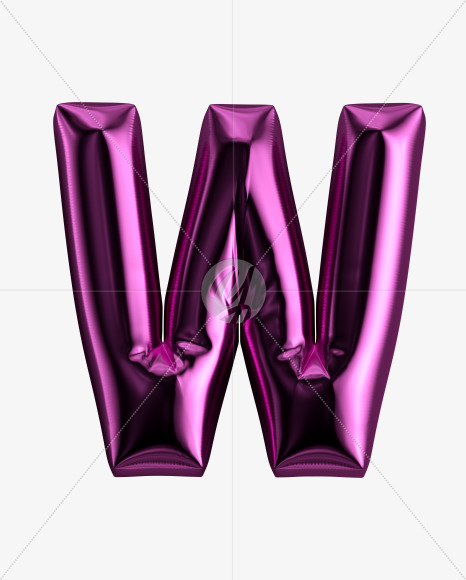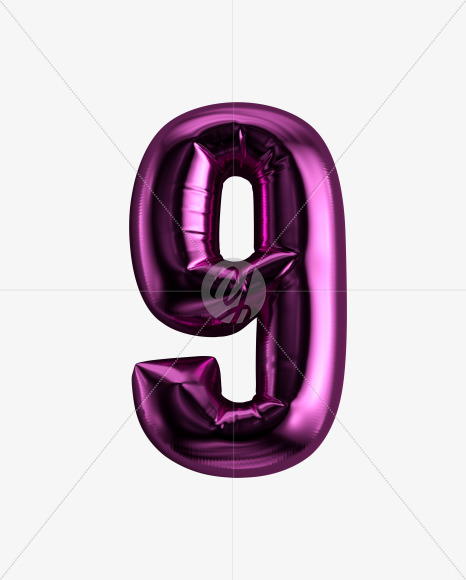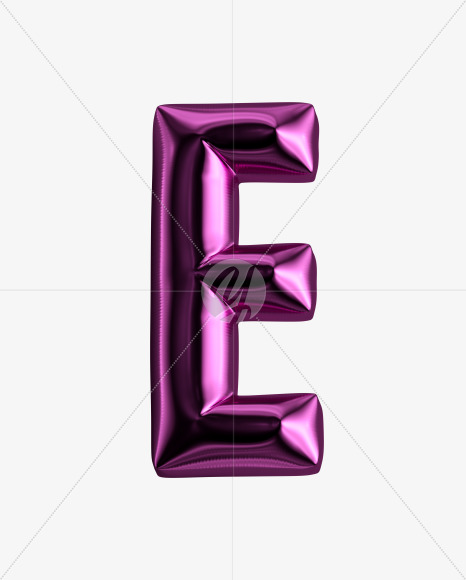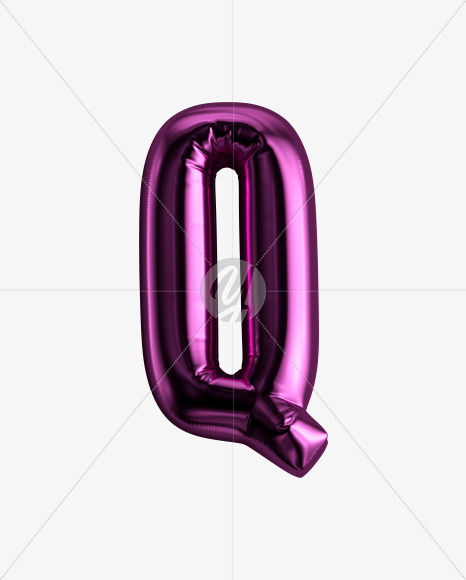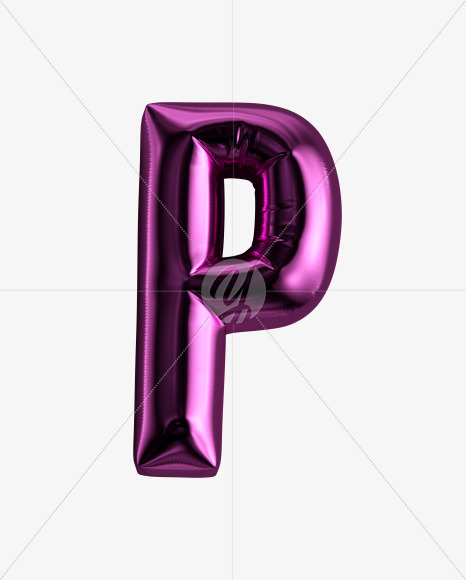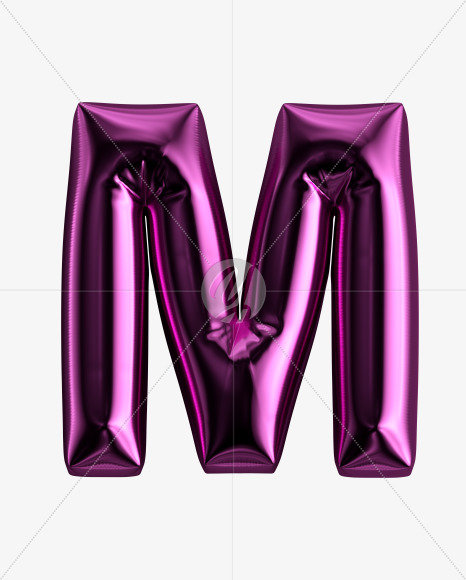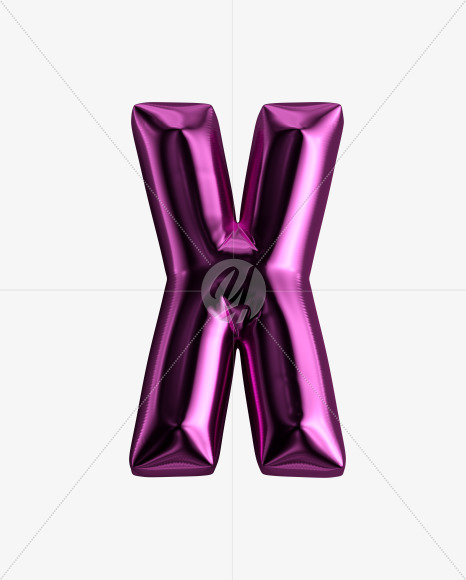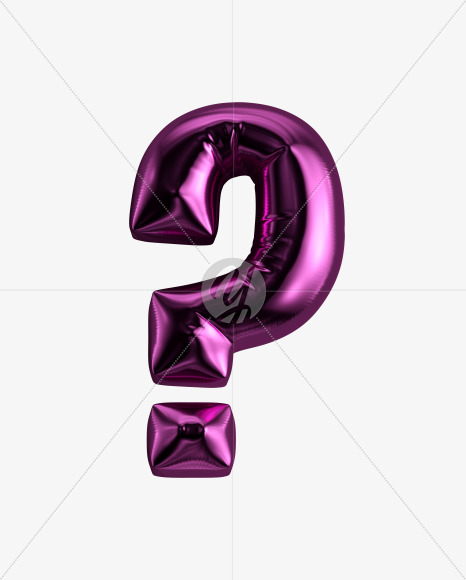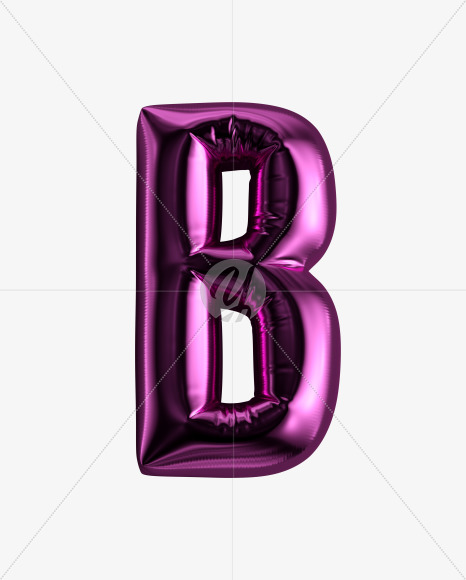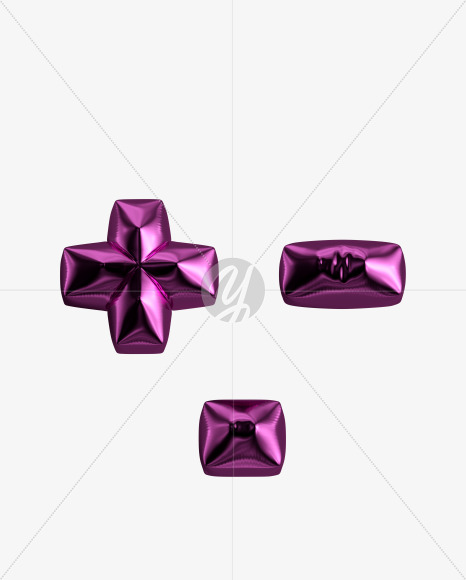
A handmade font can throw a great holiday typography party and Happy Birthday Font is the vivid example of such an event. This 3D font will make the most special day ever – a birthday of a beloved one – even greater than you can even imagine. Moreover, this holiday typeface will help you to save the memories of the celebration for a very long time. So, when and where is the handmade font party? We want to sing ‘Happy Birthday To You’!